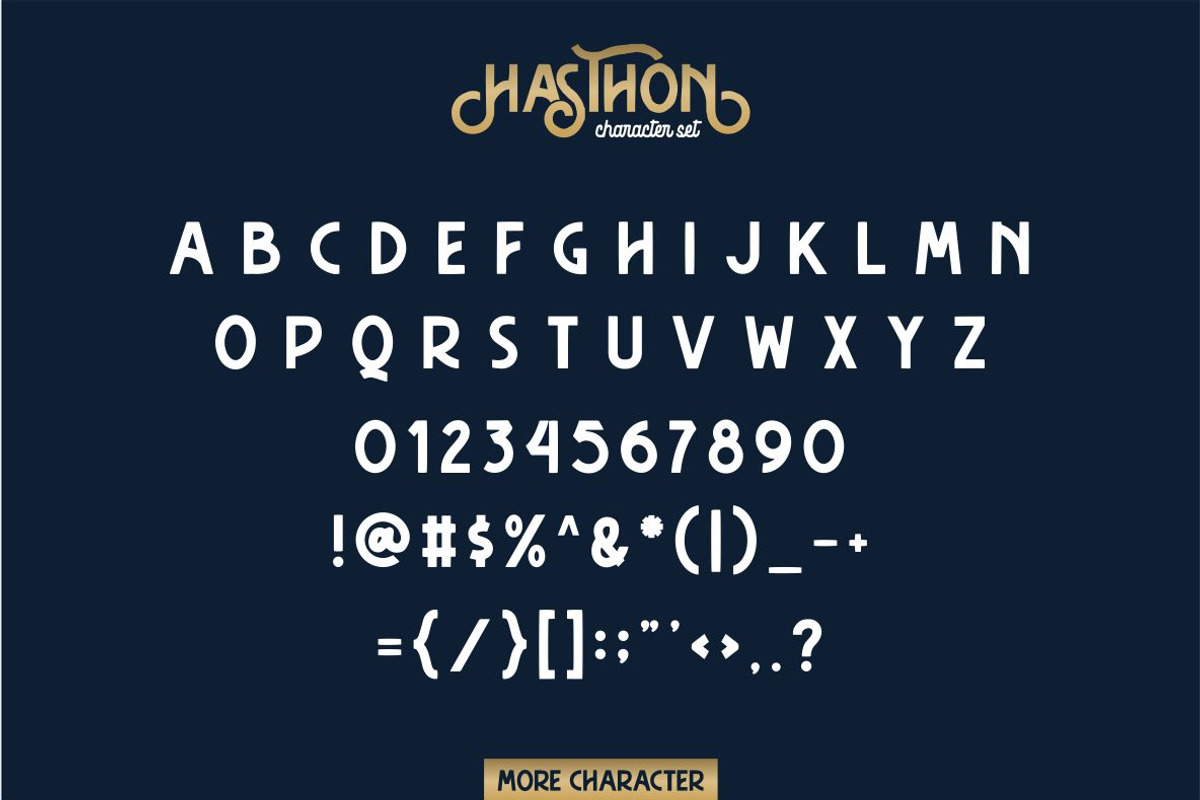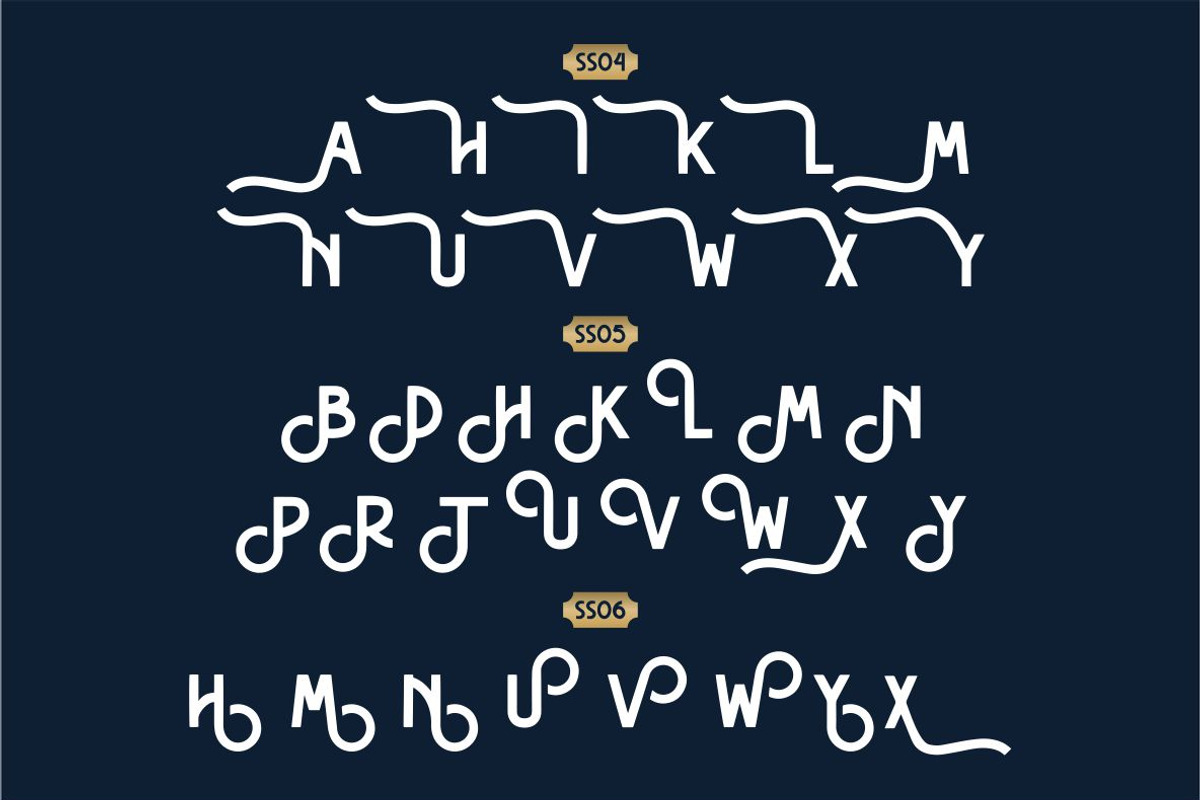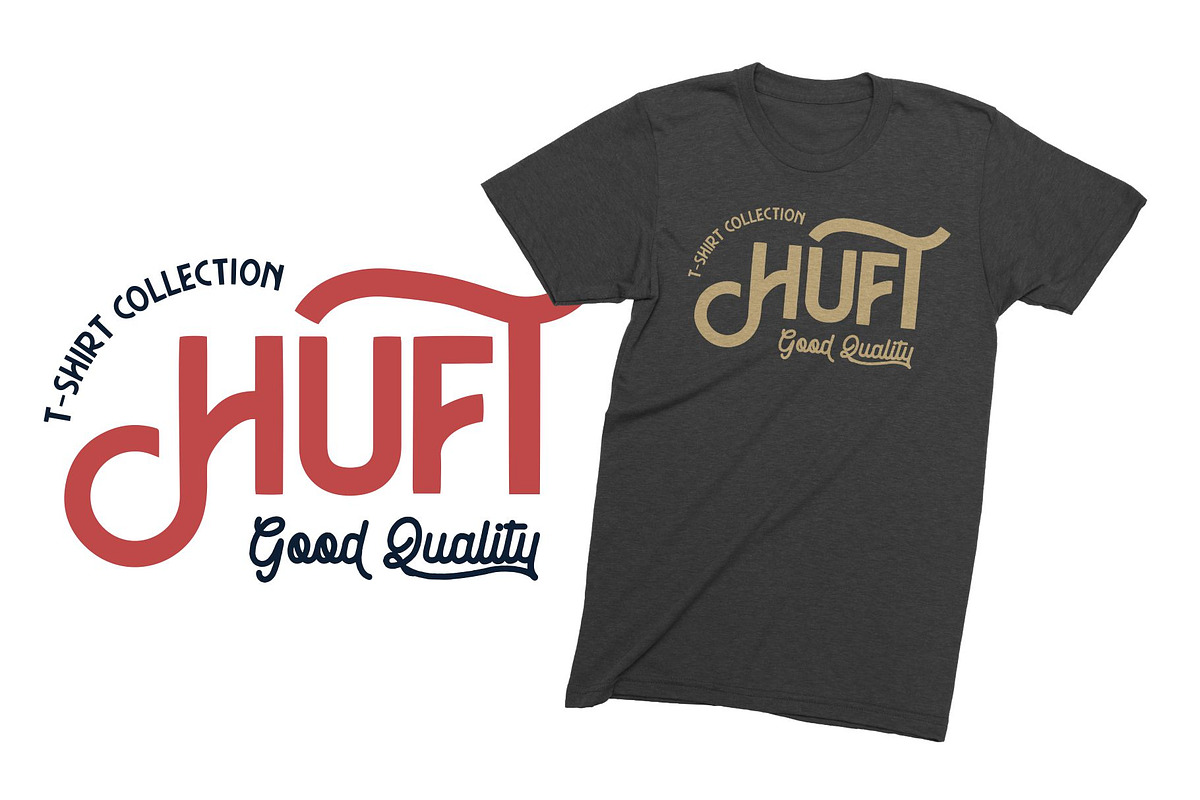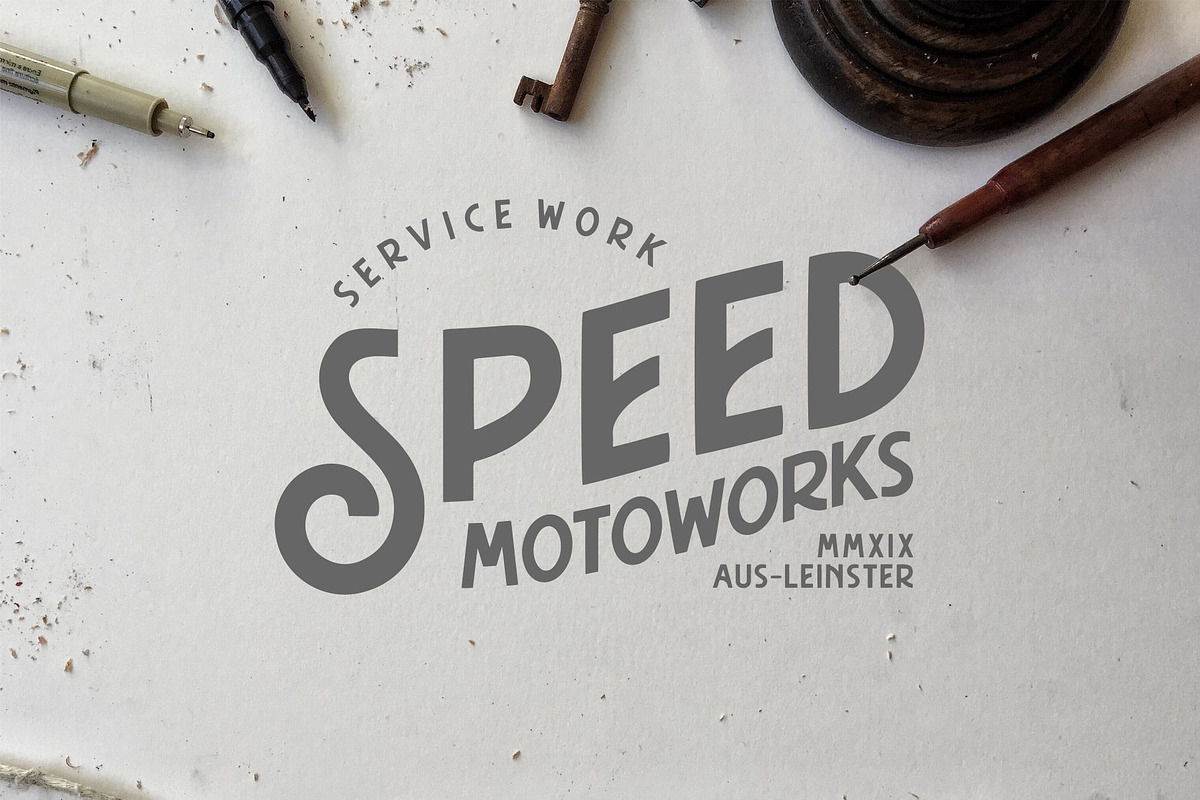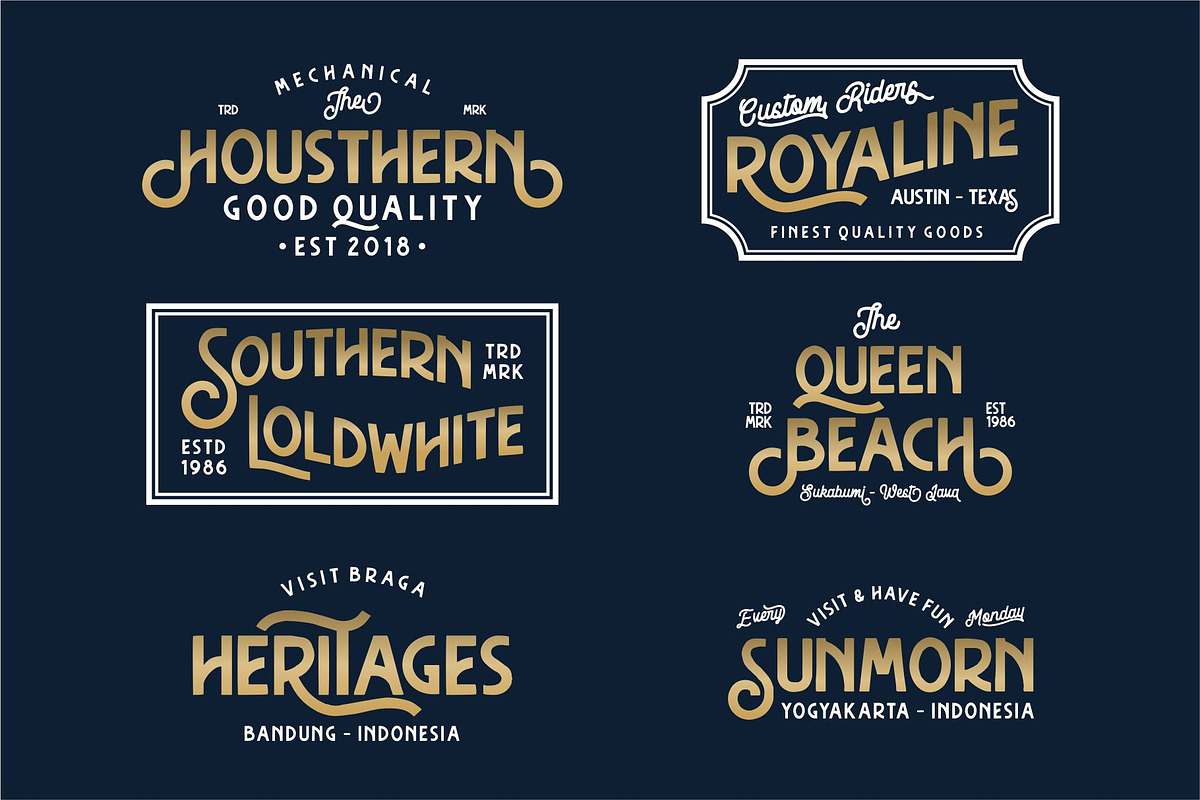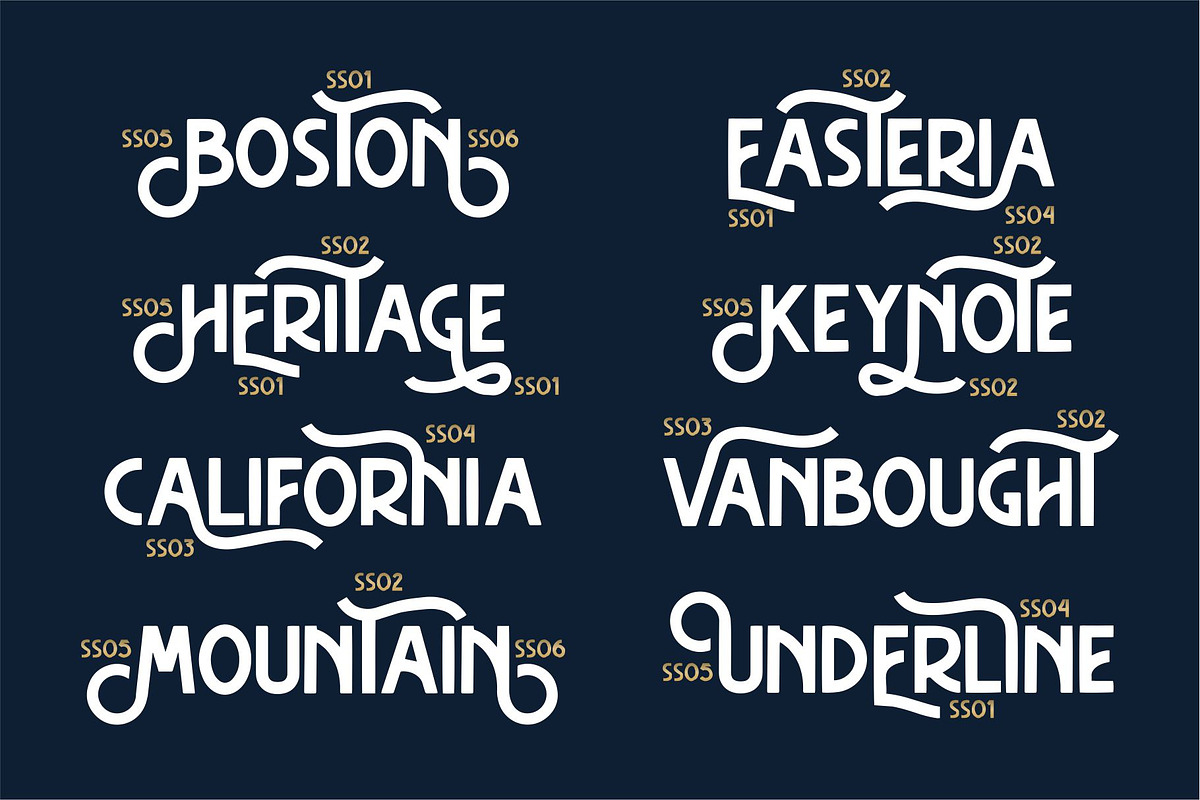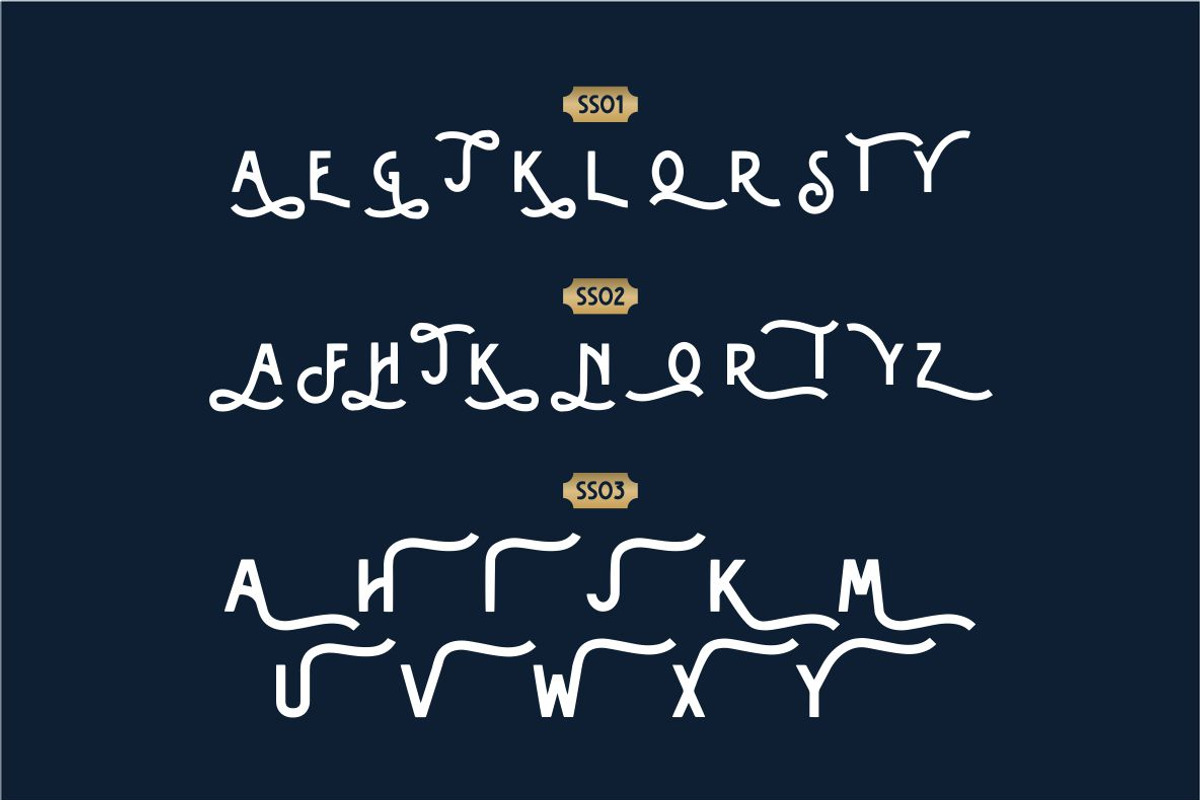
Hasthon - Vintage Font
Introducing HASTHON - SANS SERIF FONT
This font gives a feel of vintage, classic, old, handmade looked like. Already PUA Encoded and I think this font is perfect for people looking for vintage aesthetic or logo-type. Suitable for any graphic designs such as branding materials, t-shirt, print, business cards, logo, poster, t-shirt, photography, quotes .etc.
Numerals & Punctuations (OpenType Available)
- All Caps Fonts
- Numerals & Punctuations (OpenType Available)